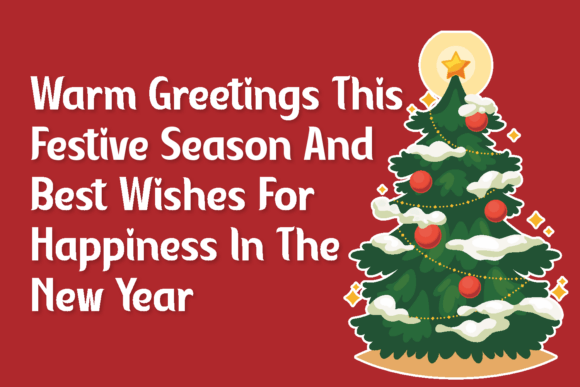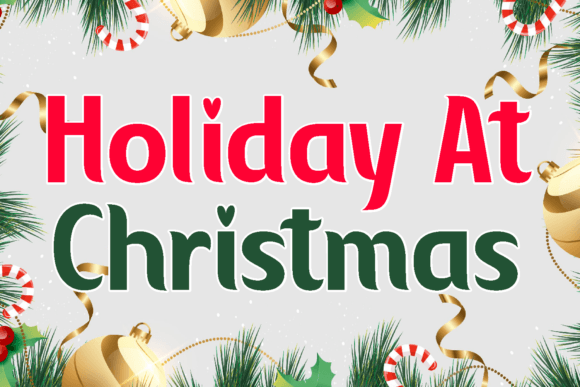
Christmas Positive Font
Experience the holiday magic with “Christmas Merry Christmas” fonts, embodying the spirit of yuletide celebrations. Reflecting a lively amalgamation of elegance and charm, these display fonts encapsulate trendy, minimalist aesthetics. Their bold strokes evoke Santa Claus’s hearty mirth, while the ligature designs mimic his playful dance.